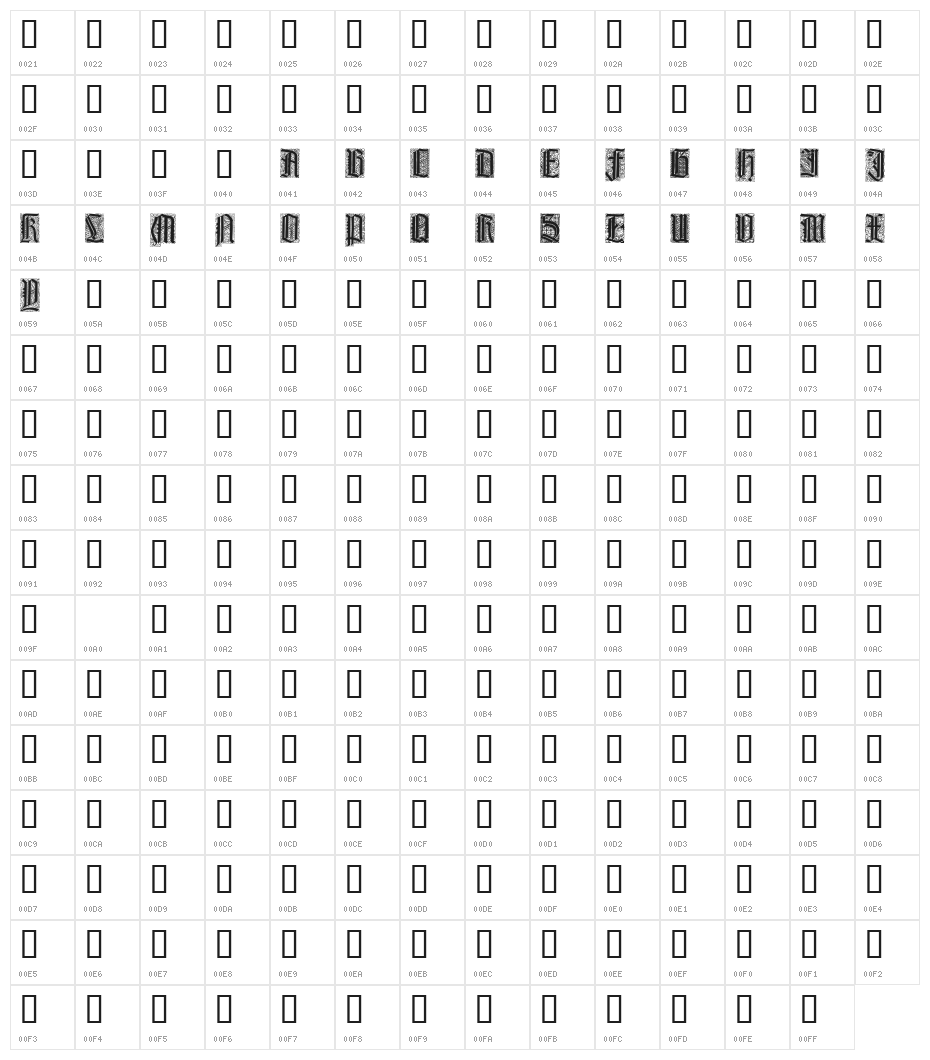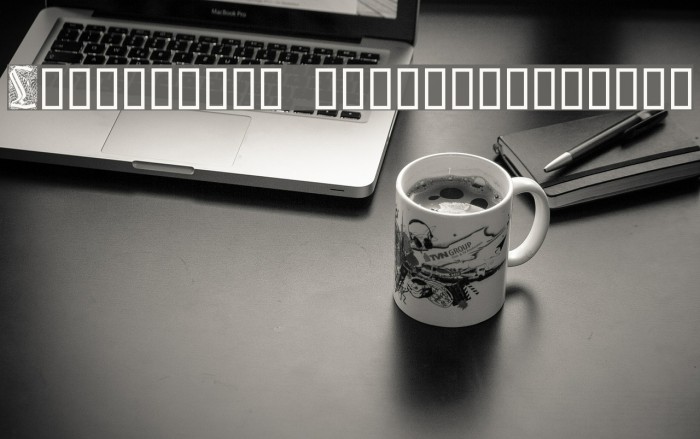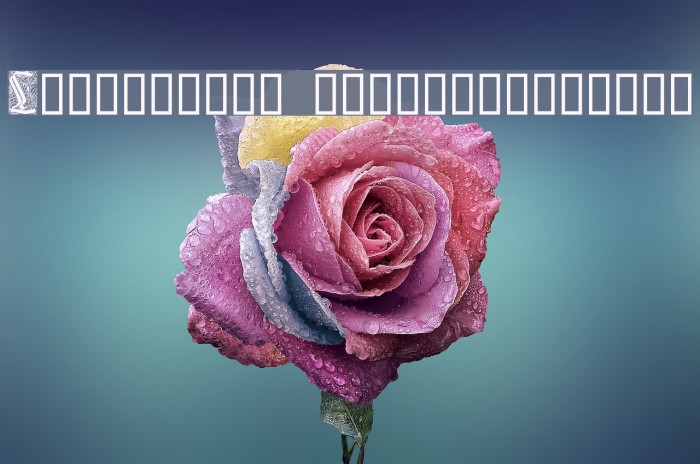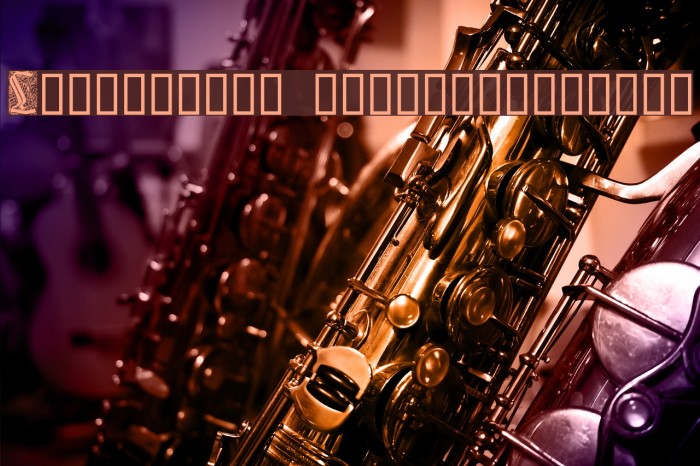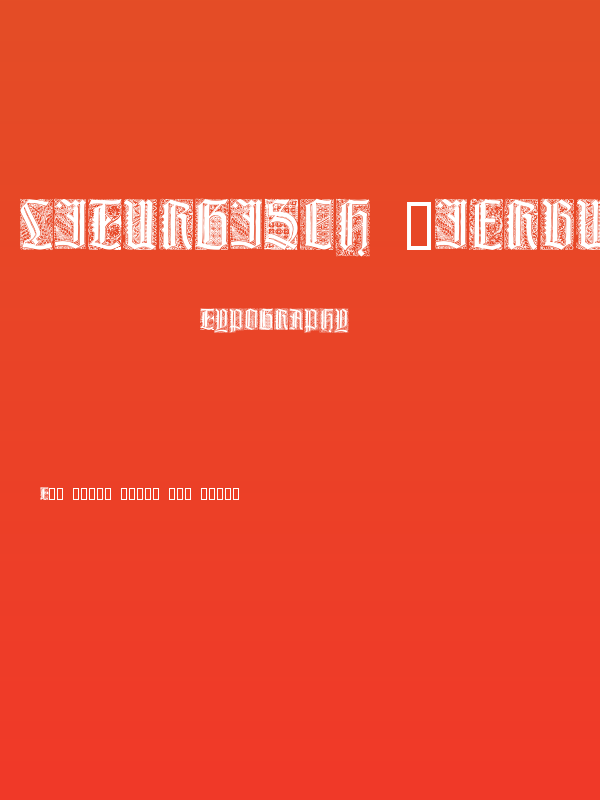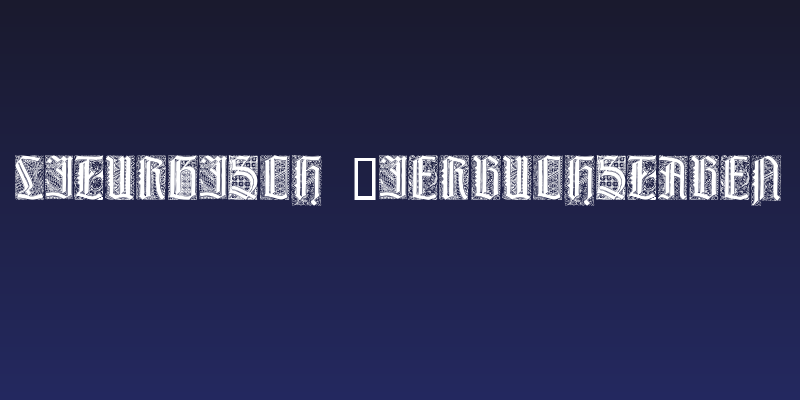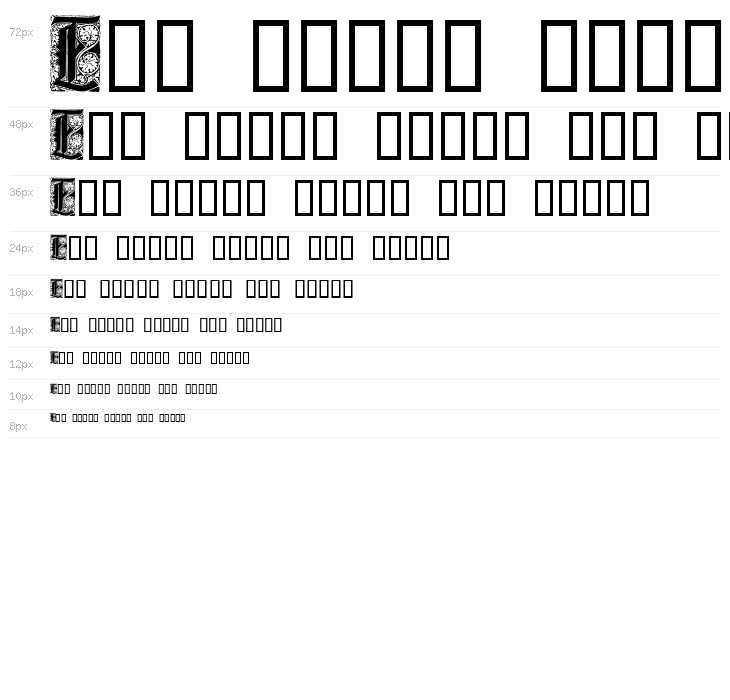
Liturgisch Zierbuchstaben Font
Liturgisch Zierbuchstaben Description
This font showcases an intricate and ornate design, reminiscent of medieval script with a highly decorative flair. Each letter is adorned with elaborate embellishments, creating a sense of grandeur and historical richness. The uppercase letters are particularly detailed, featuring complex patterns within the letterforms that evoke a sense of artistry and craftsmanship. The style is reminiscent of illuminated manuscripts, with a strong emphasis on decorative elements that enhance the visual impact of the text. The overall appearance is both majestic and traditional, making it suitable for projects that require a touch of historical elegance.
| Use Case | Headlines, Decorative text |
| Proposed Projects | Ideal for historical documents, wedding invitations, book covers, and any project seeking a vintage or medieval aesthetic. |